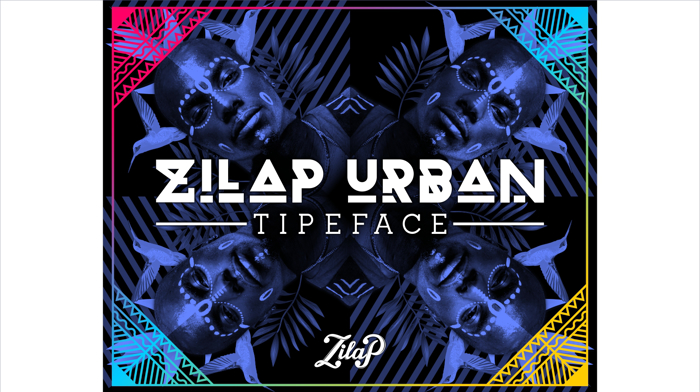
Zilap Urban Font
ZILAP URBAN: A new font inspired by music, genre and urban style, a font that fits perfectly in our present day.
Design & Concept by Zilap Studio
Assembly and foundry by LJ Design Studios